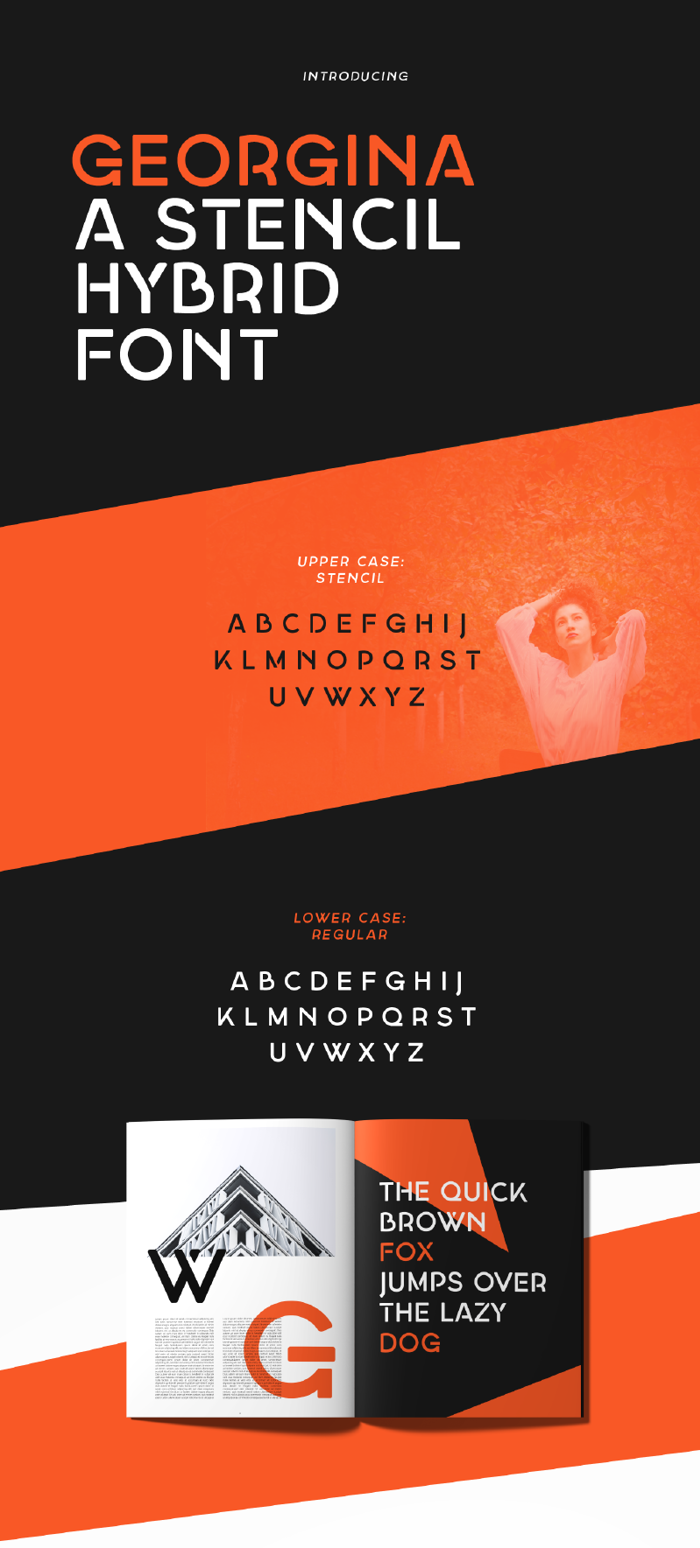
Georgina Font
Georgina is a new clean, retro touched stencil which can be used for almost anything. And you can combine! The lower case has all the regular characters and the upper case has the stencil - so you really can design a unique headline in a very fast way.